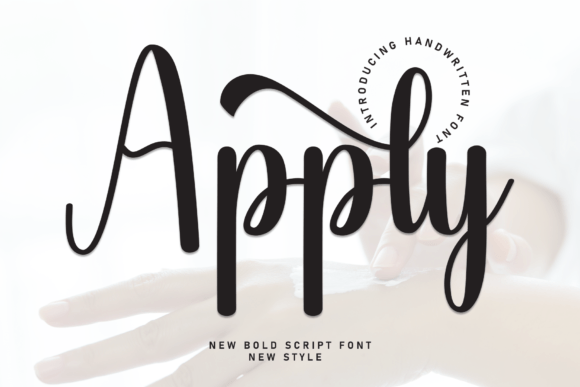
Immerse yourself in the enchanting world of Apply, a captivating script font that exudes warmth and charm. Designed with a touch of nostalgia, Apply is a handwritten display font that beautifully captures the essence of handwritten notes and heartfelt messages. Its distinctive style adds a personal touch to any creative endeavor, whether it's designing wedding invitations, crafting heartfelt cards, or adding a unique flair to your latest project.
With its elegant curves and playful swashes, Apply embodies a sense of joy and celebration. Each letter dances across the page, creating a visually stunning display that draws the eye and captures the heart. The font's versatility lends itself to a wide range of applications, from creating personalized logos and branding materials to adding a touch of whimsy to social media posts and digital designs.
Designed by the talented William Jhody, Apply is a labor of love that reflects the artist's passion for creating fonts that evoke emotion and inspire creativity. The font's name, Apply, is a nod to the idea of adding a personal touch to your creative projects, just as you would apply a delicate layer of paint to a canvas.
Whether you're a seasoned designer or simply looking to add a unique touch to your personal projects, Apply is the perfect choice for those seeking a font that is both beautiful and meaningful. Its playful spirit and charming aesthetic are sure to leave a lasting impression on your audience, making it the ideal font for creating designs that resonate with warmth and joy.
So embrace the magic of Apply and let your creativity flourish. Add a touch of whimsy to your wedding invitations, create heartfelt cards that convey your deepest emotions, or design projects that radiate with personality and charm. With Apply, the possibilities are endless. Dive into a world of endless creative possibilities and make your designs truly unforgettable.